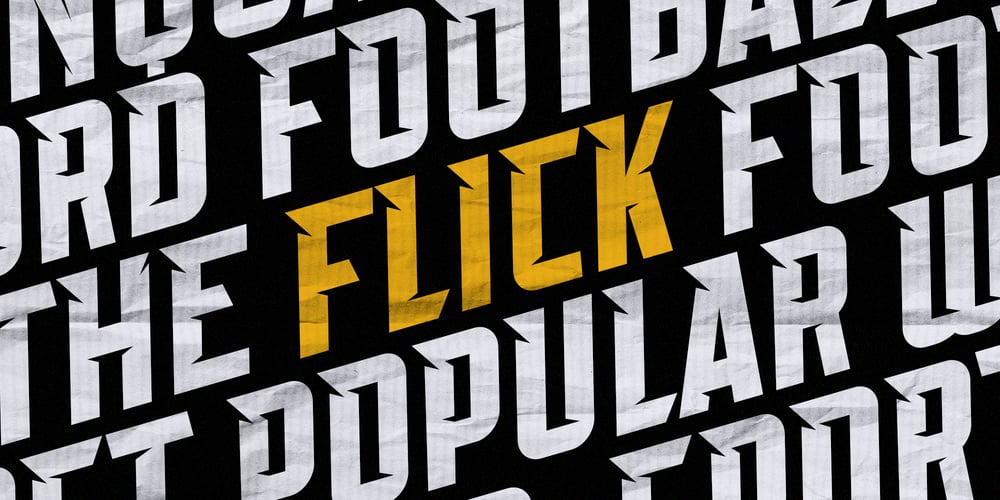
Flick Font Family was designed by Muhammad Afif Ersya and published by Trequartista Studio. Flick contains 4 styles and family package options. Flick an awesome sports fonts, modern cutouts, and dynamic slant. Ideal for fast car racing sports titles, running matches, cycling, automotive game logos and monograms or other modern dynamic text.Flick compare favorably with legibility and size, creating the effect of power and speed. Designed as a fast and dynamic font, but with a slightly different font design, check it out and grab it right away.